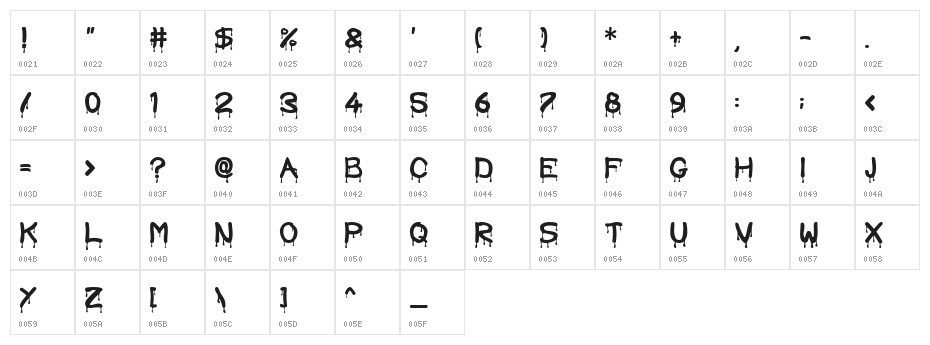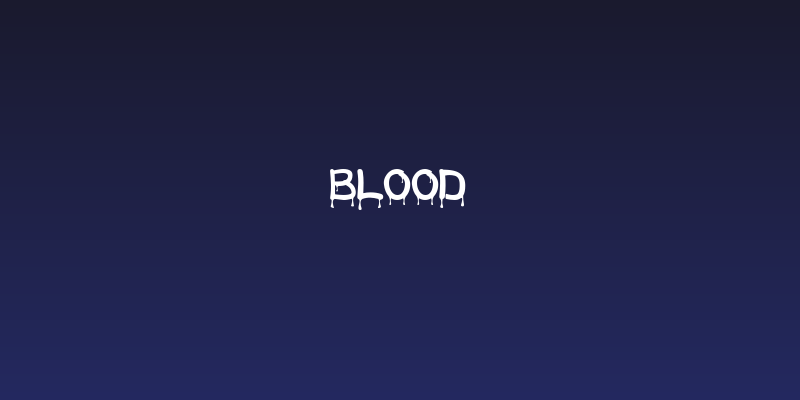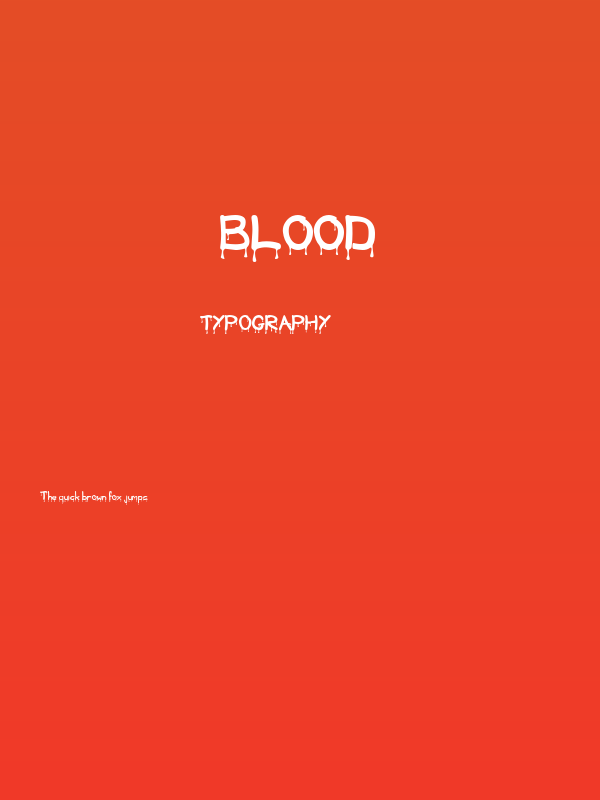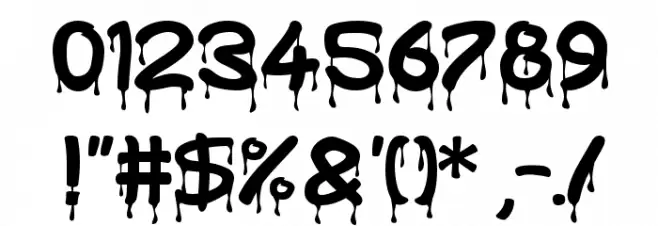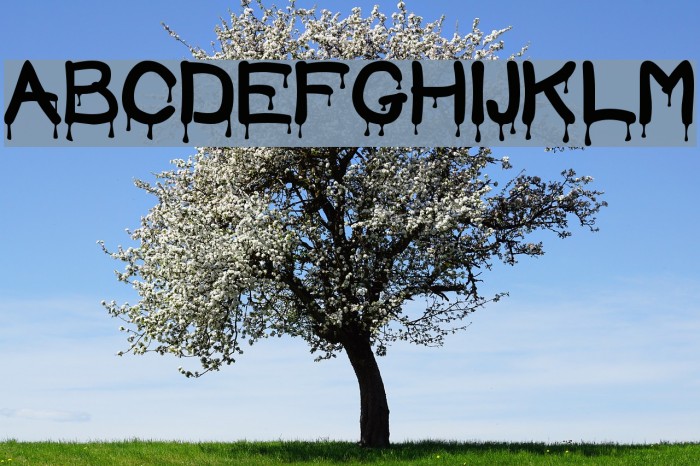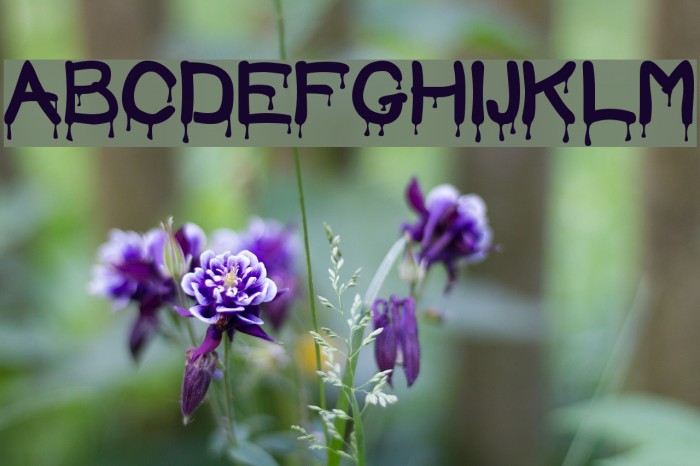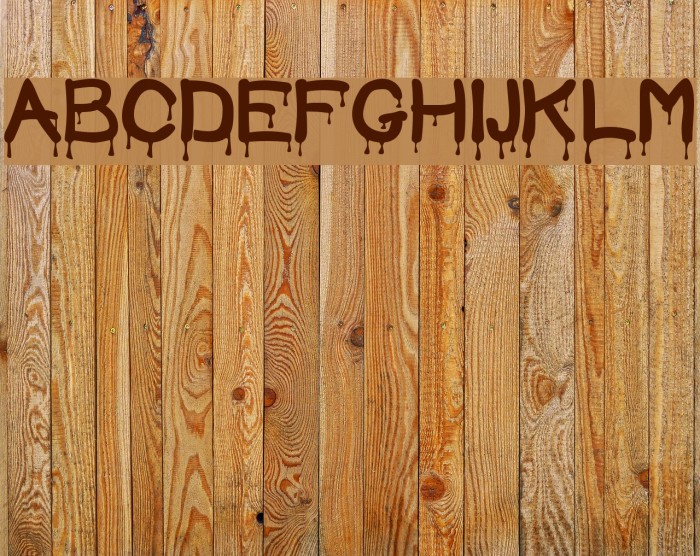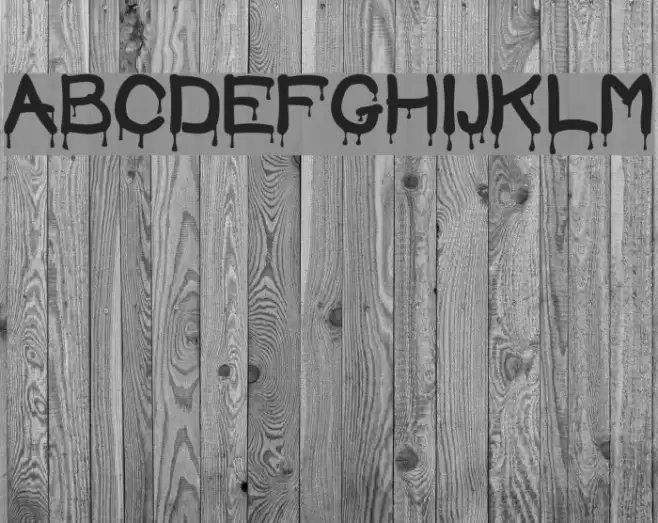
Blood Font
Blood Description
This font features a unique and dramatic style, characterized by its dripping effect that mimics the appearance of liquid or blood. The letters have a bold and slightly irregular shape, enhancing the eerie and unsettling aesthetic. The uppercase and lowercase letters maintain a consistent design, with each character appearing as if it is melting or dripping. The numerals and special characters follow the same theme, providing a cohesive look across all glyphs. This font is perfect for creating a spooky or horror-themed atmosphere, making it ideal for Halloween designs, horror movie posters, or any project that requires a chilling and eye-catching typeface.
| Proposed Projects | Ideal for Halloween invitations, horror movie posters, themed event flyers, and eerie book covers. |